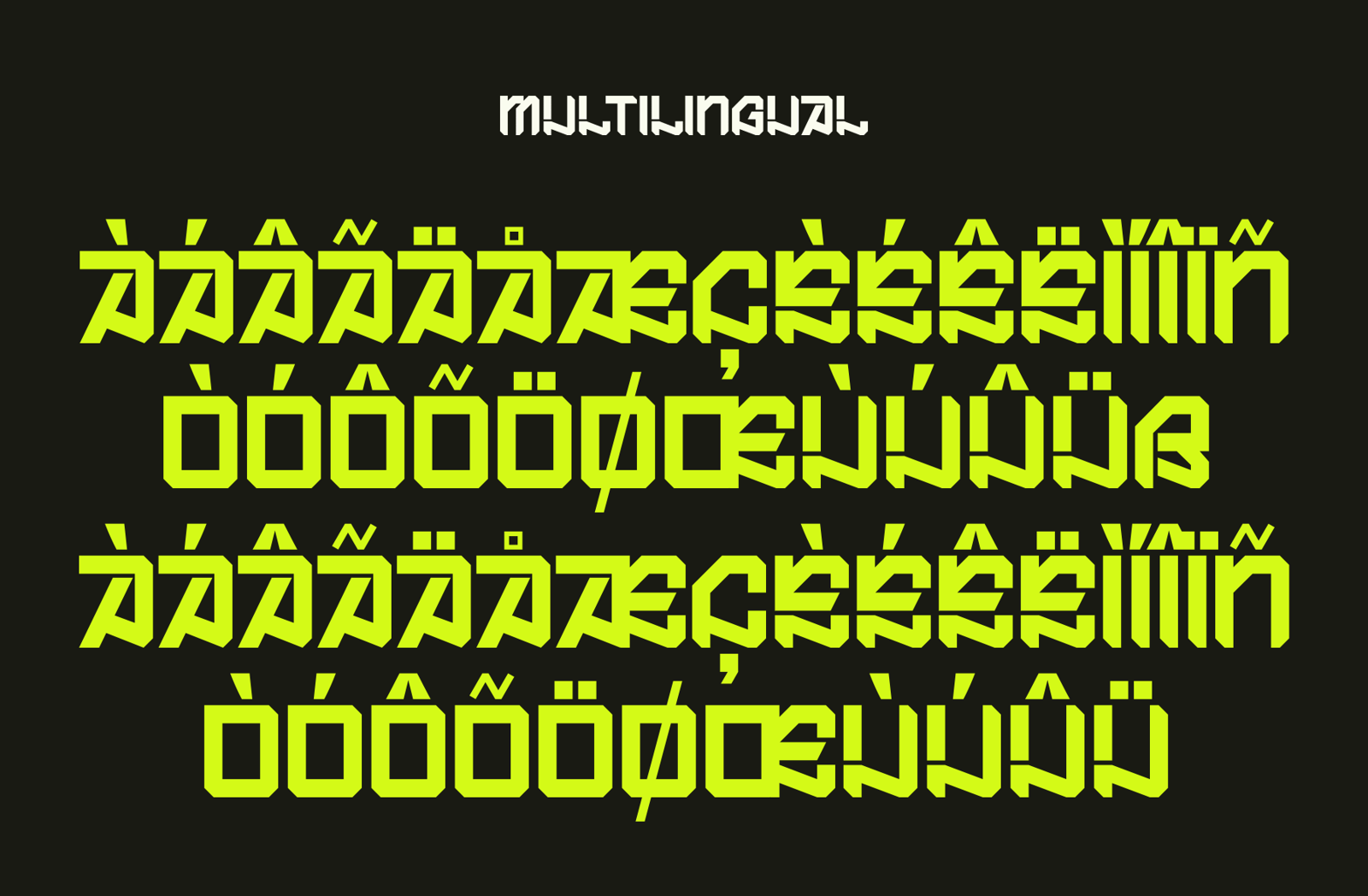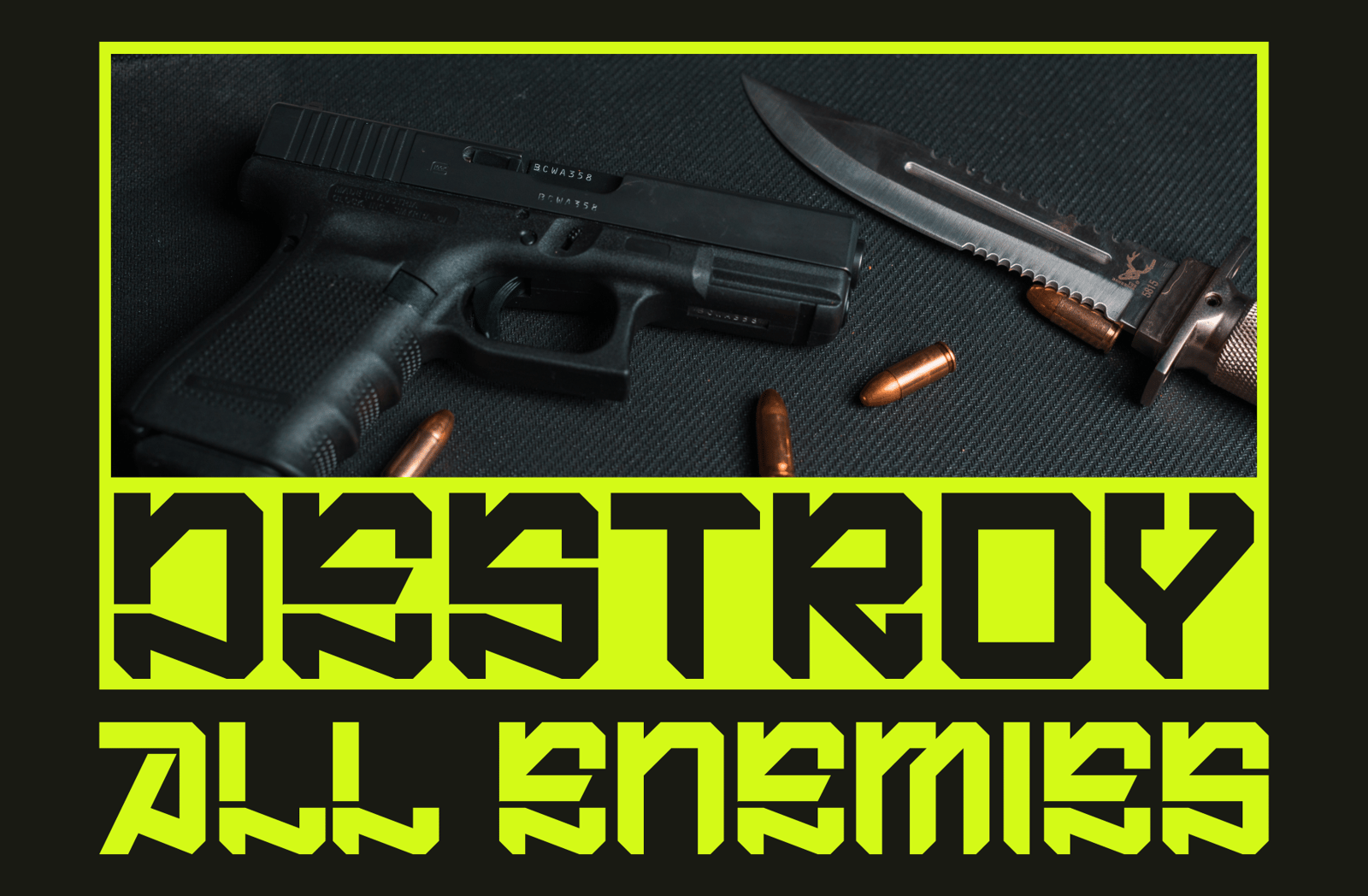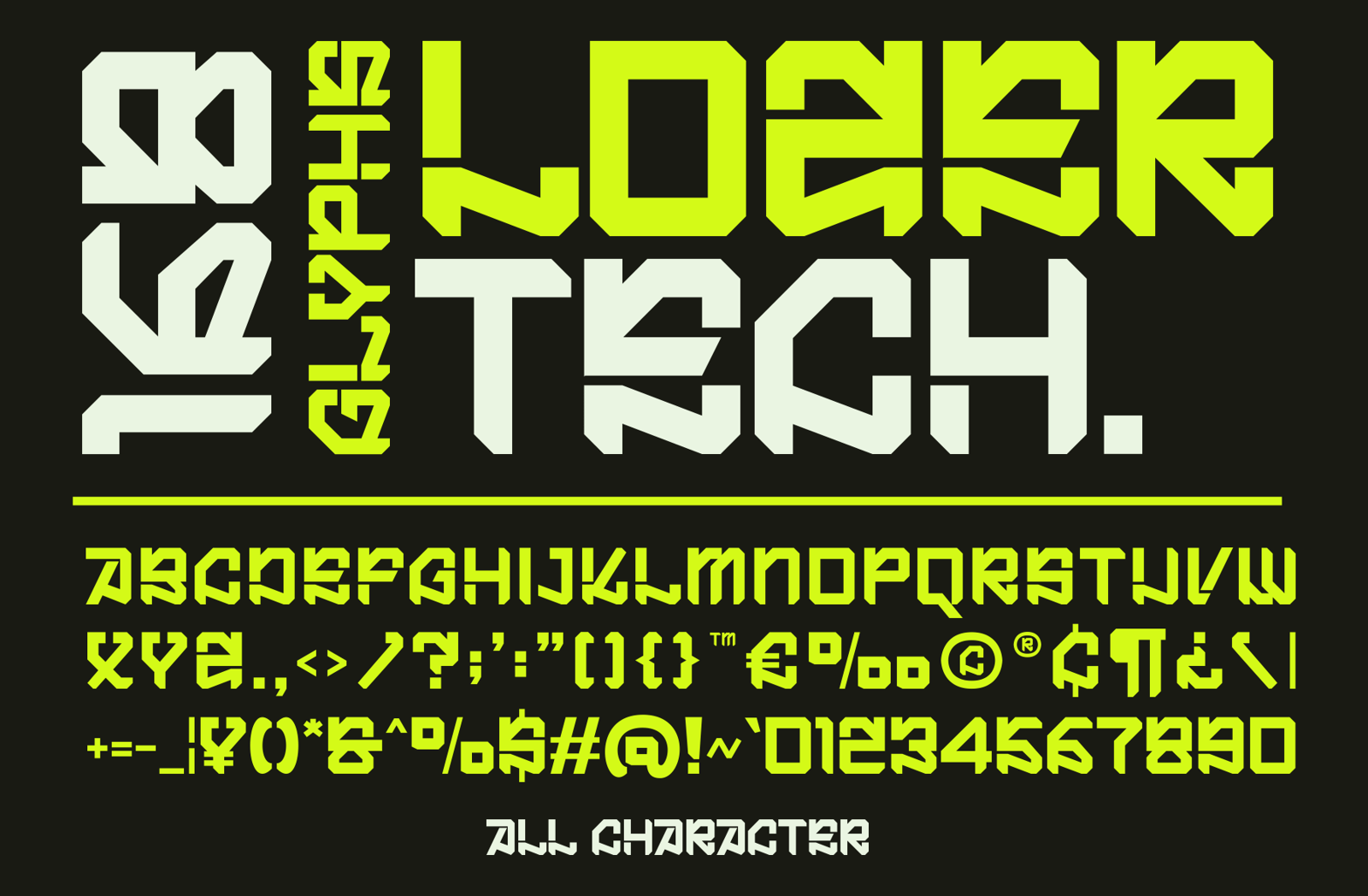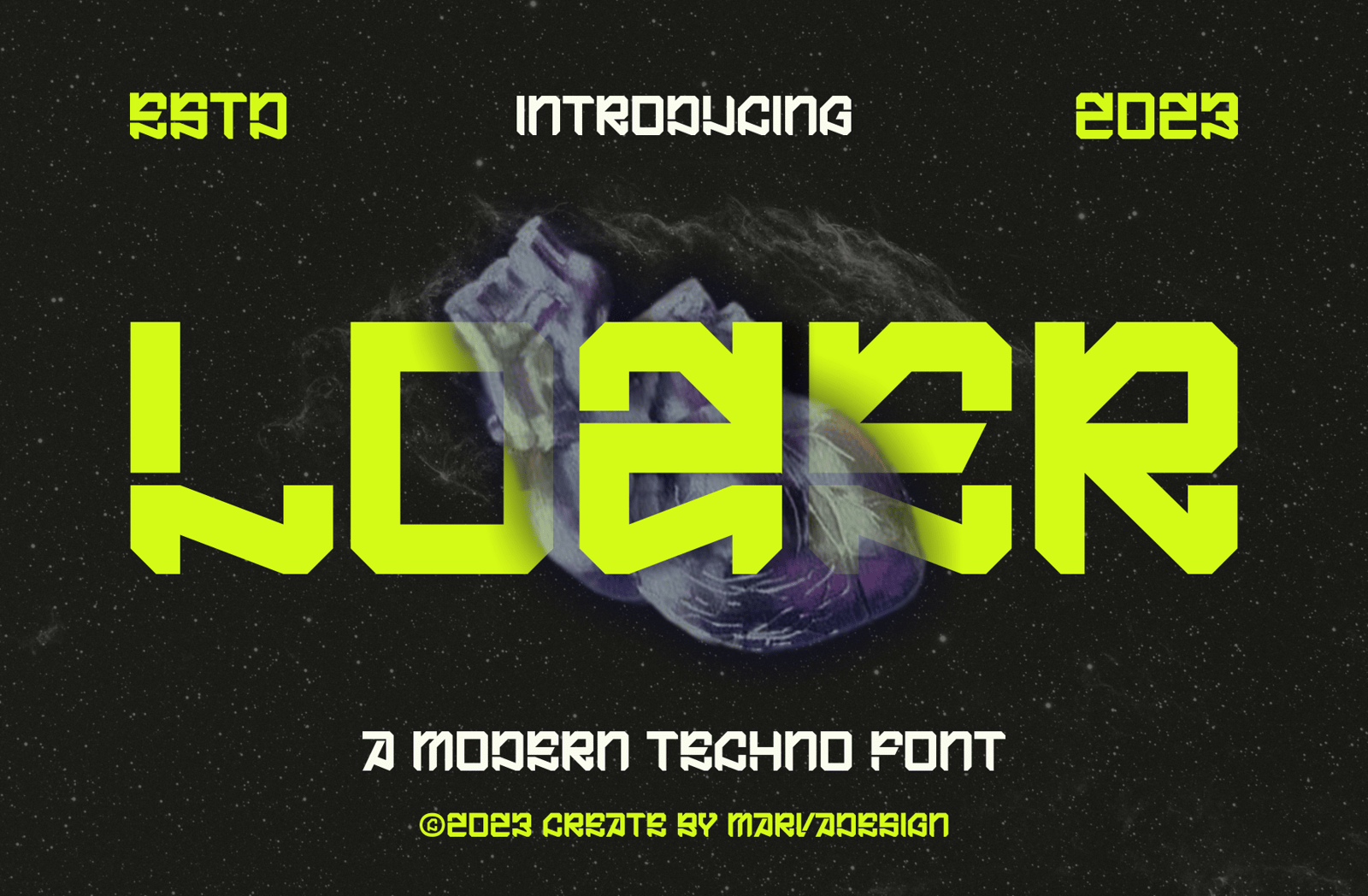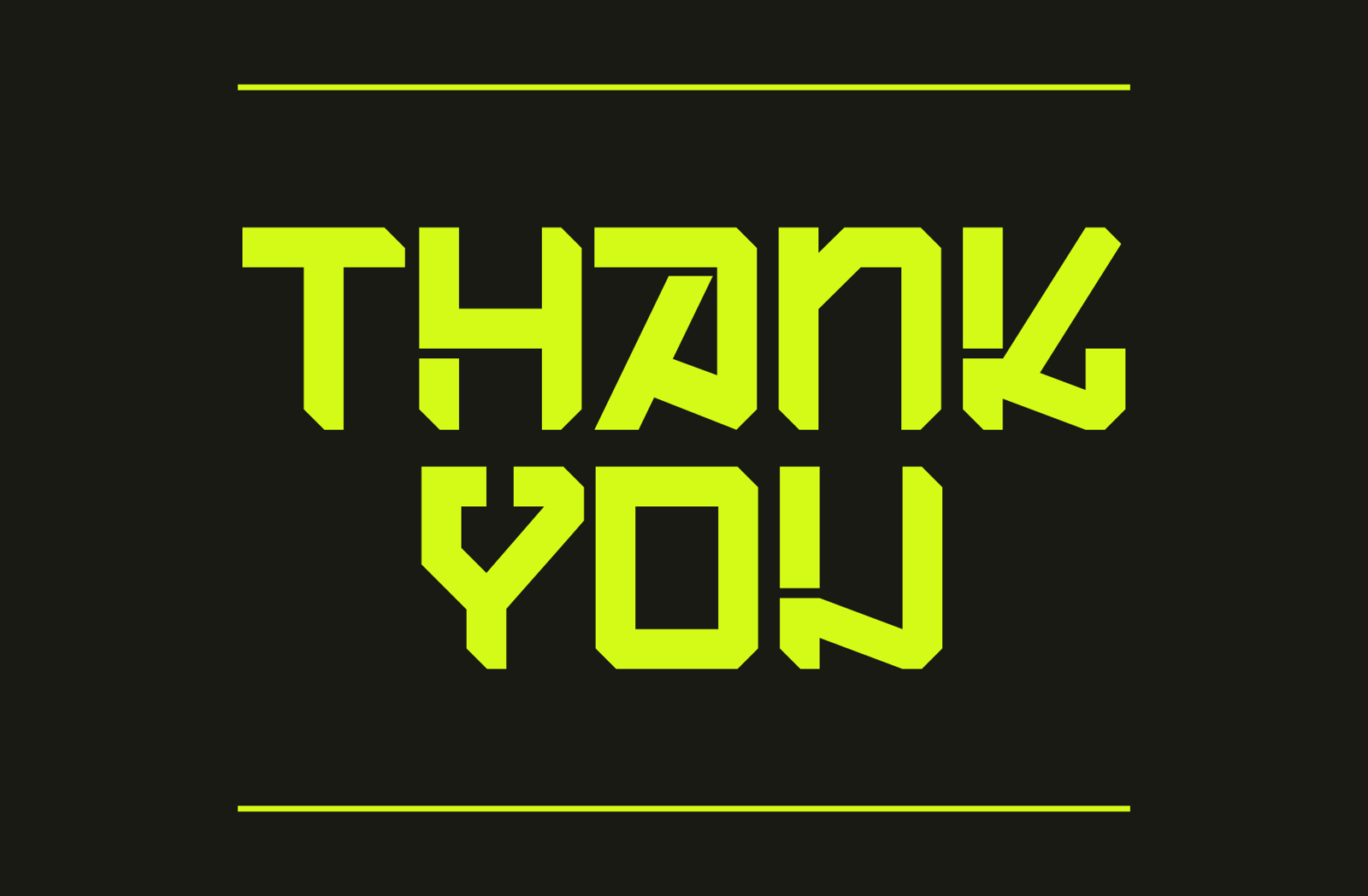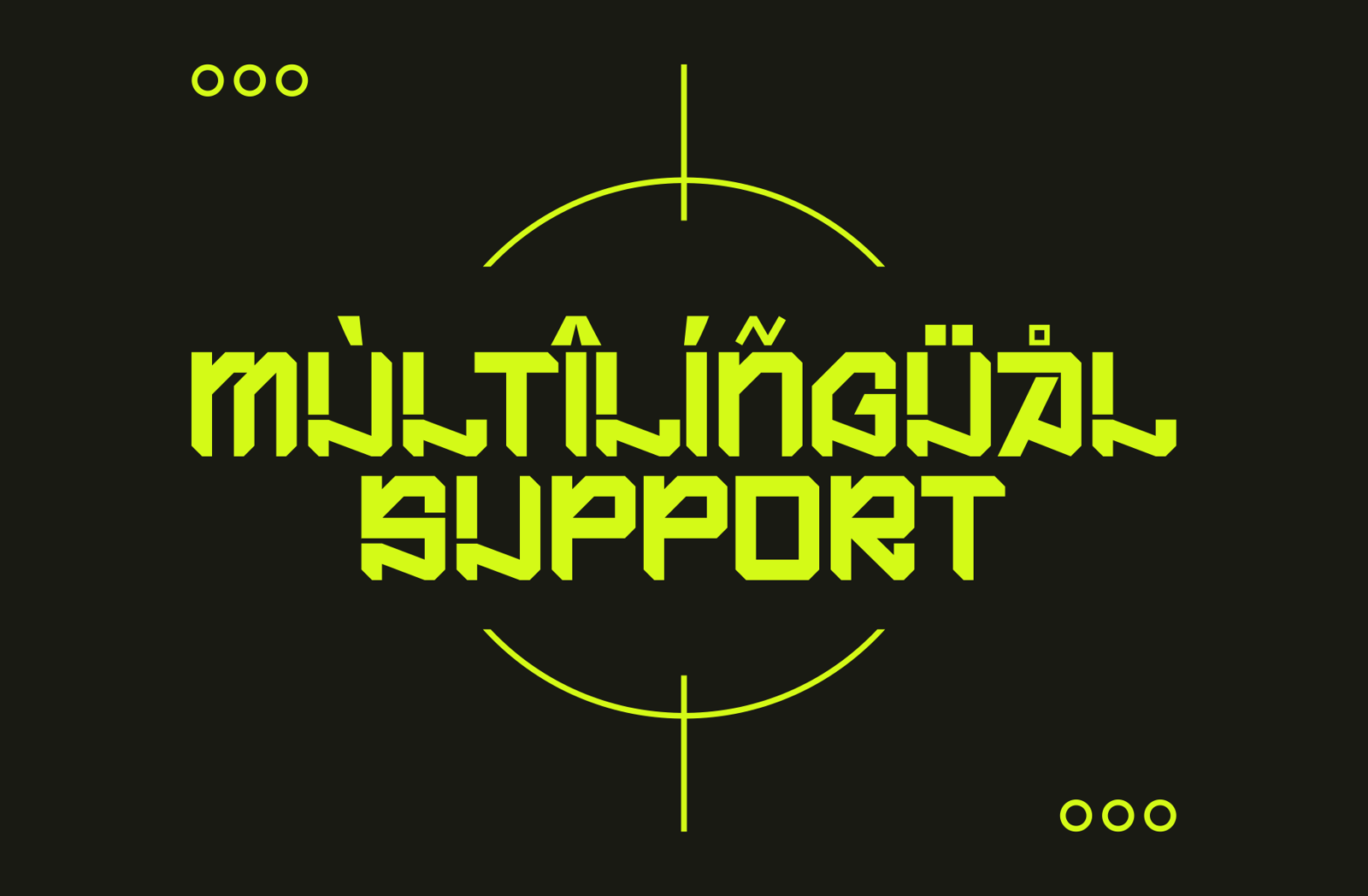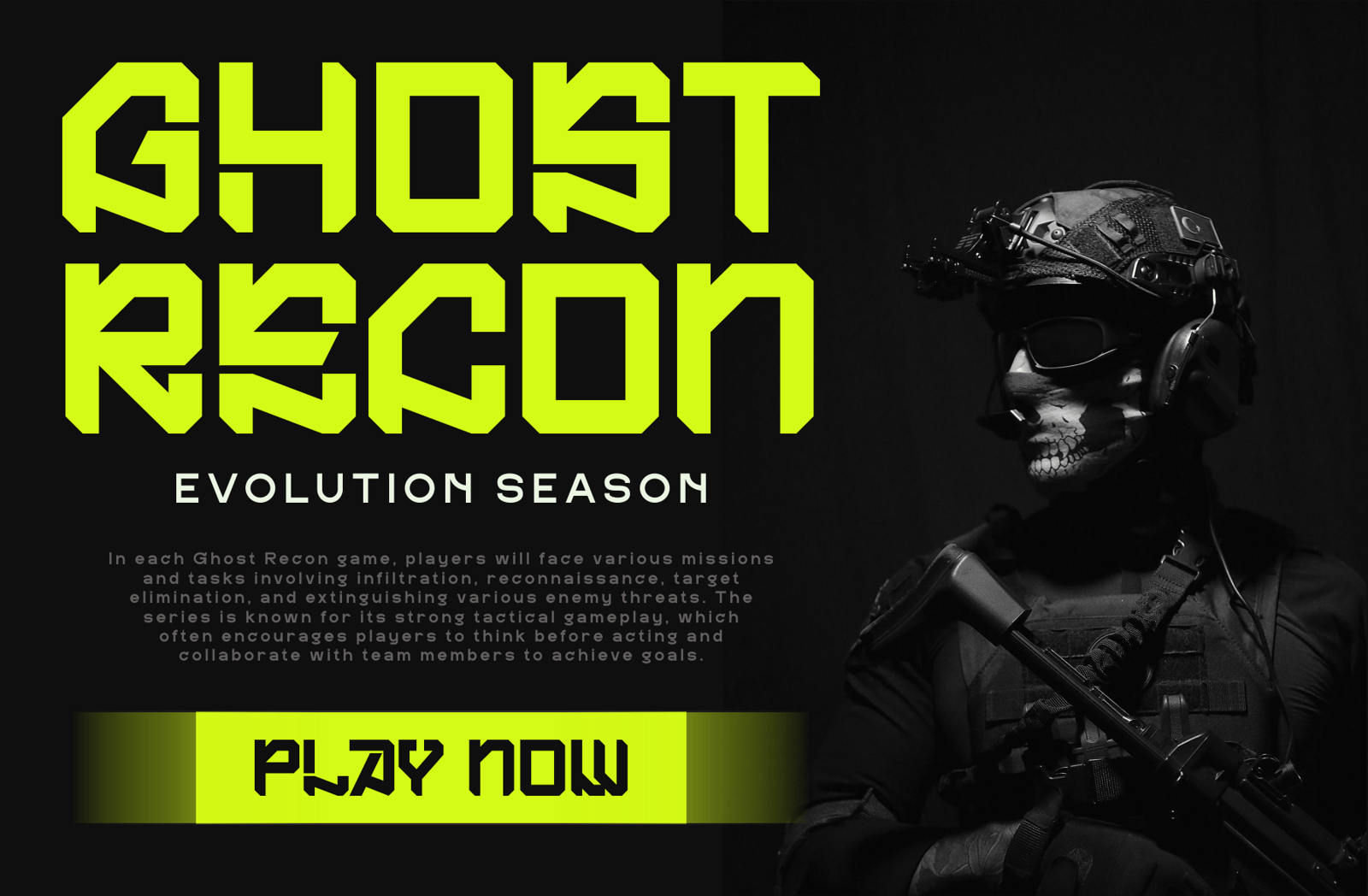
Lozer Font
Introducing our new product **Lozer Font** - A Modern Techno Font
**Lozer Font** - Modern Font is a bold and authentic display font. The font is suitable for any branding project like logo, Template Design, Product and many more. outstanding in a wide range of contexts.